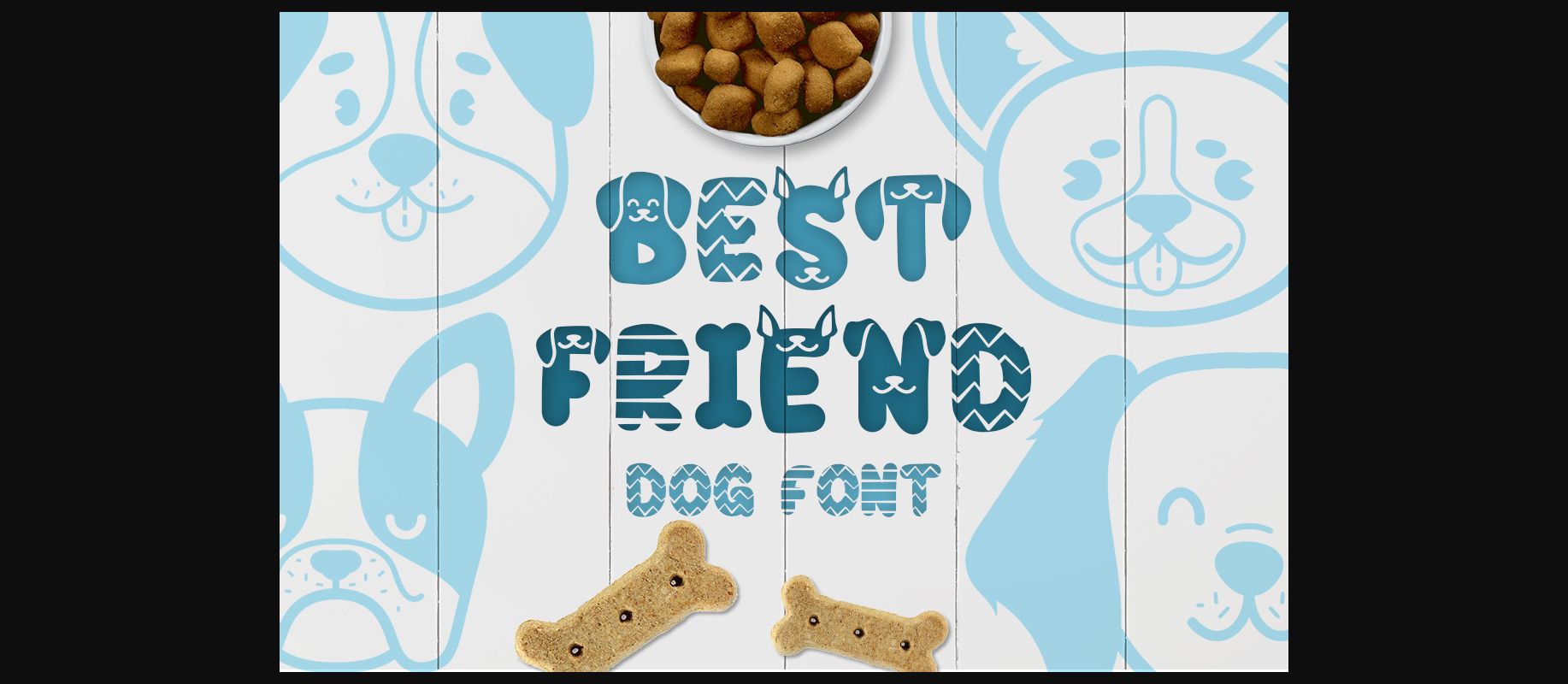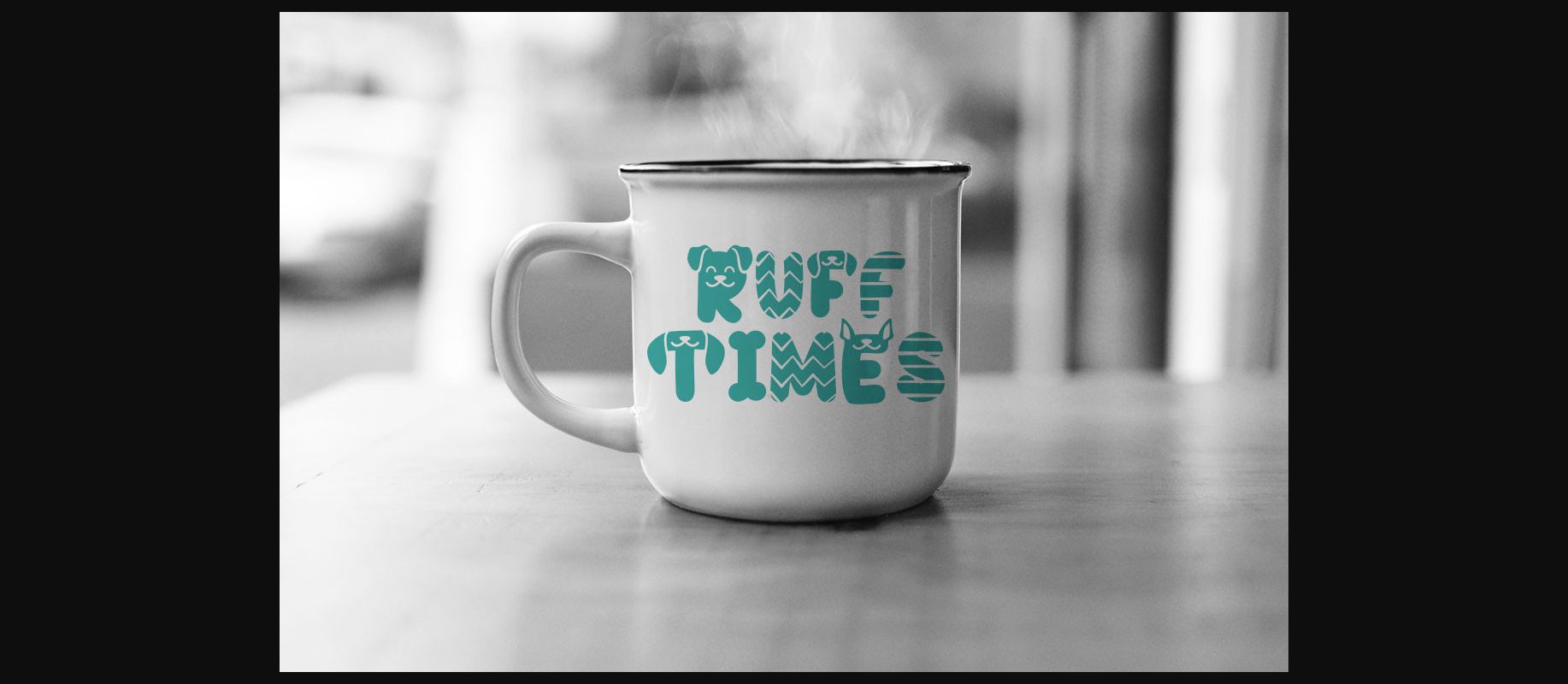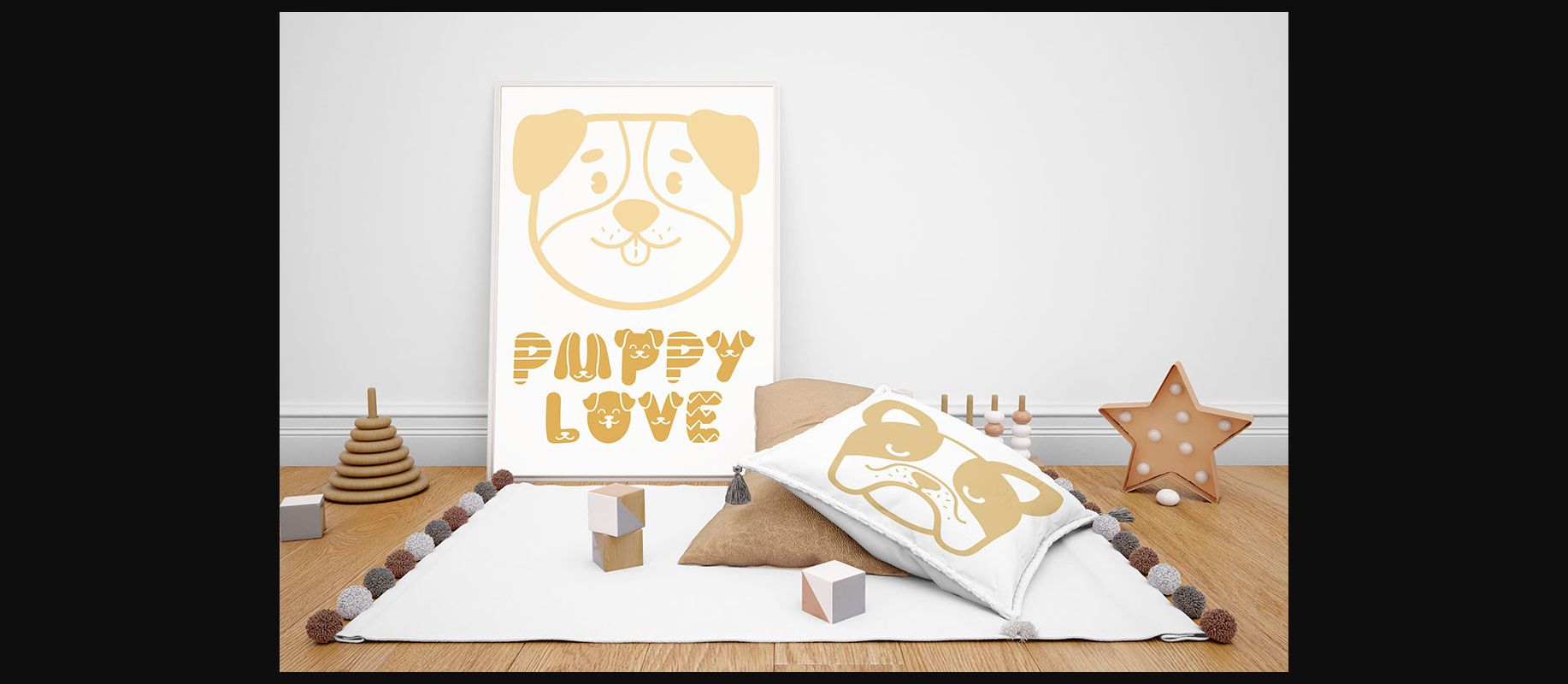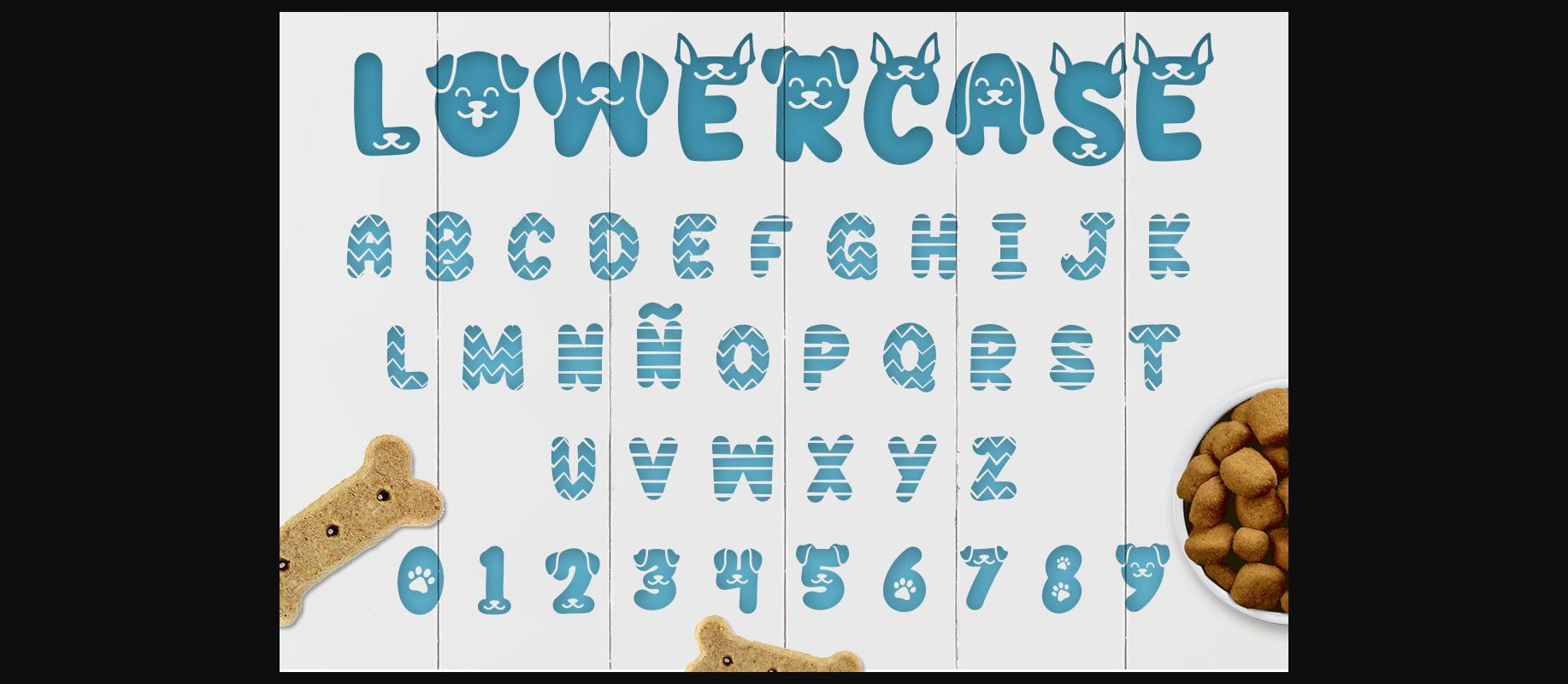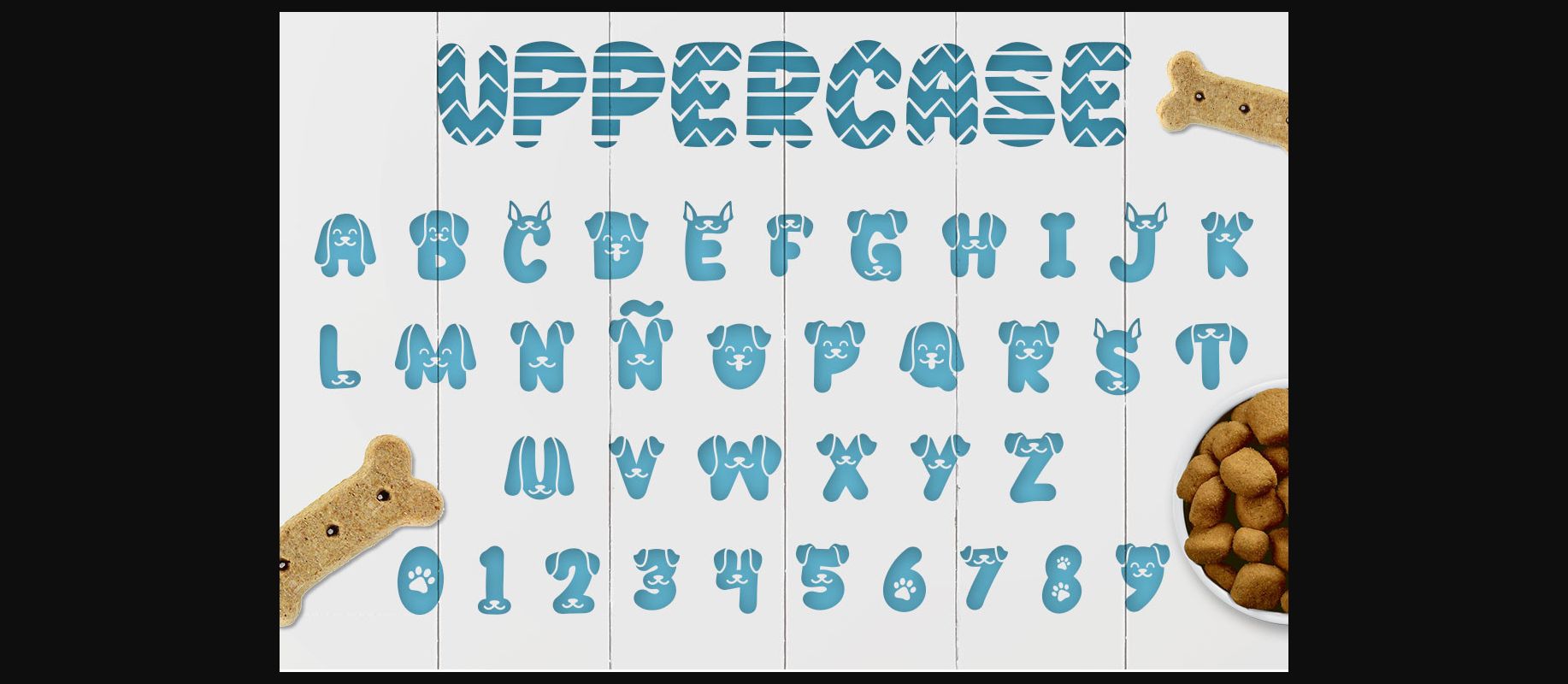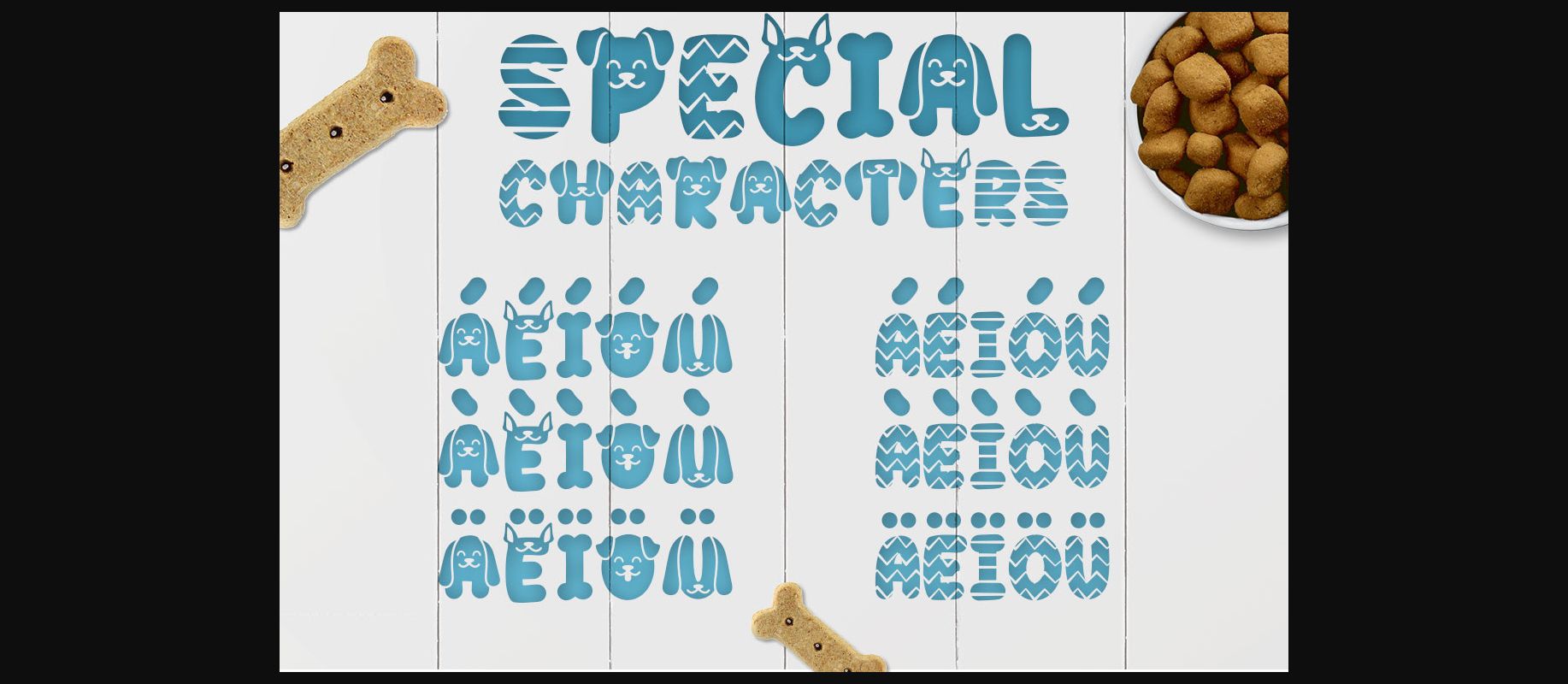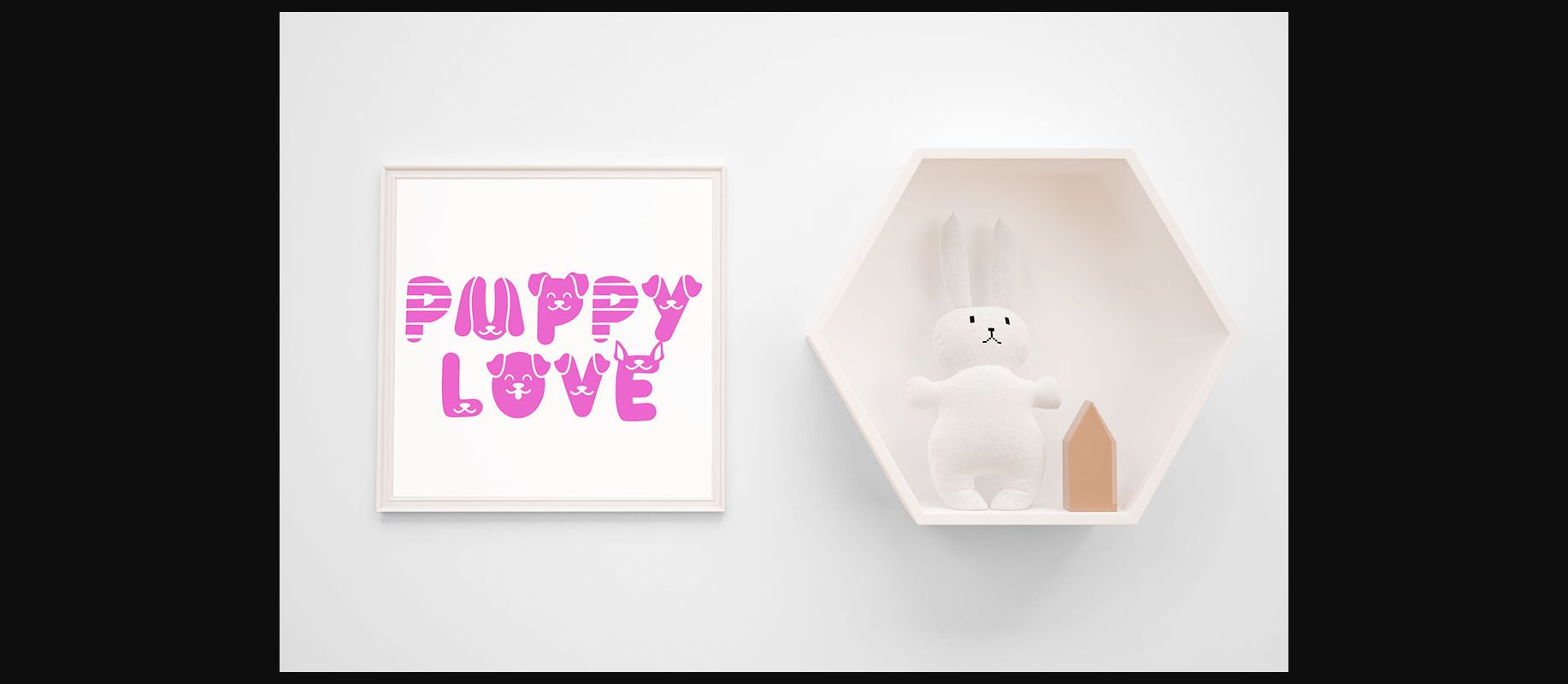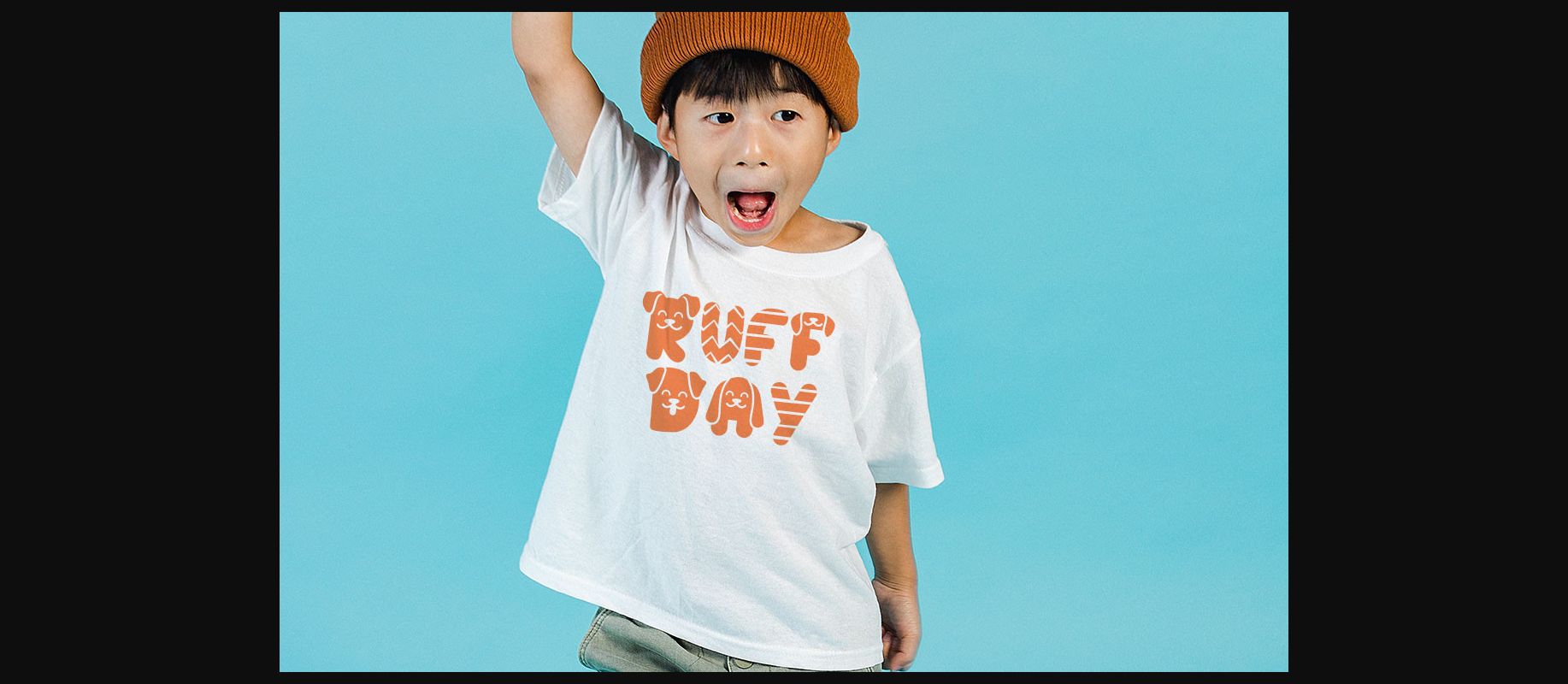
Best Friend Font
About Best Friend Font
Best Friend is a cool and chic decorative font. Whether you’re using it for crafts, digital design, presentations, or making greeting cards, this font has the potential to become your favorite go-to font, no matter the occasion!